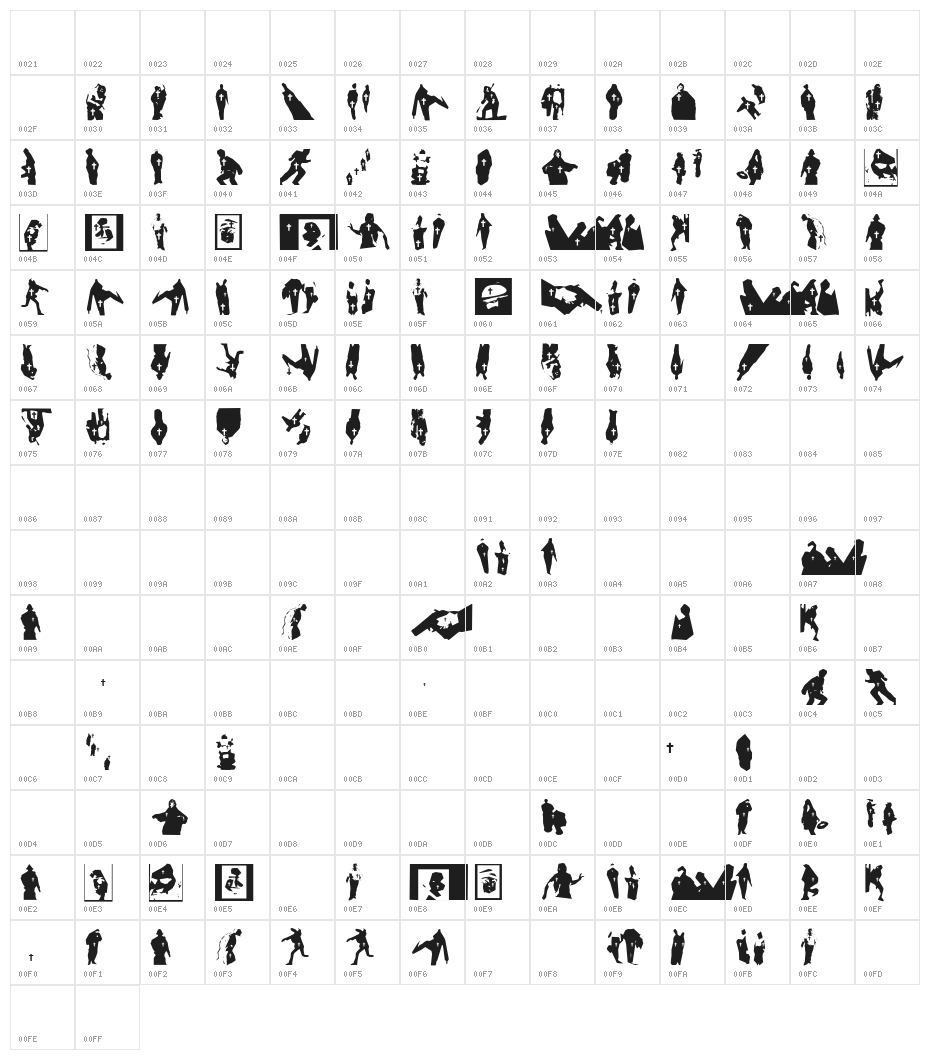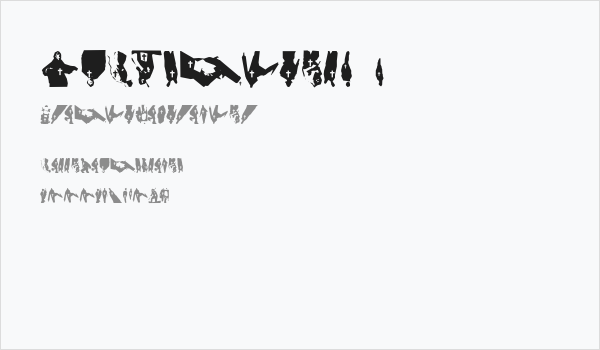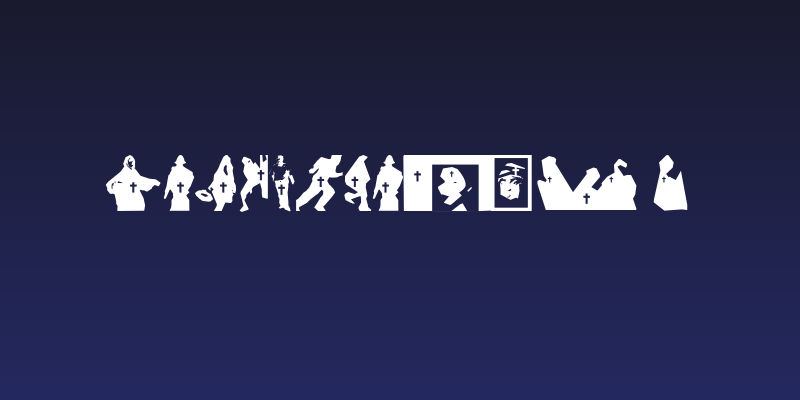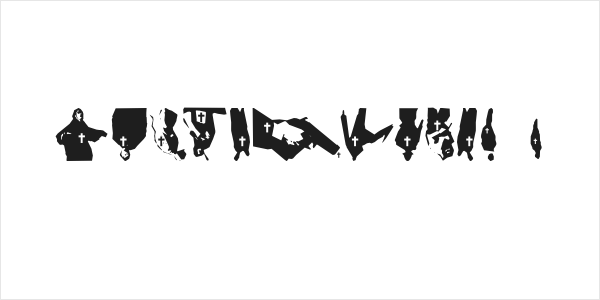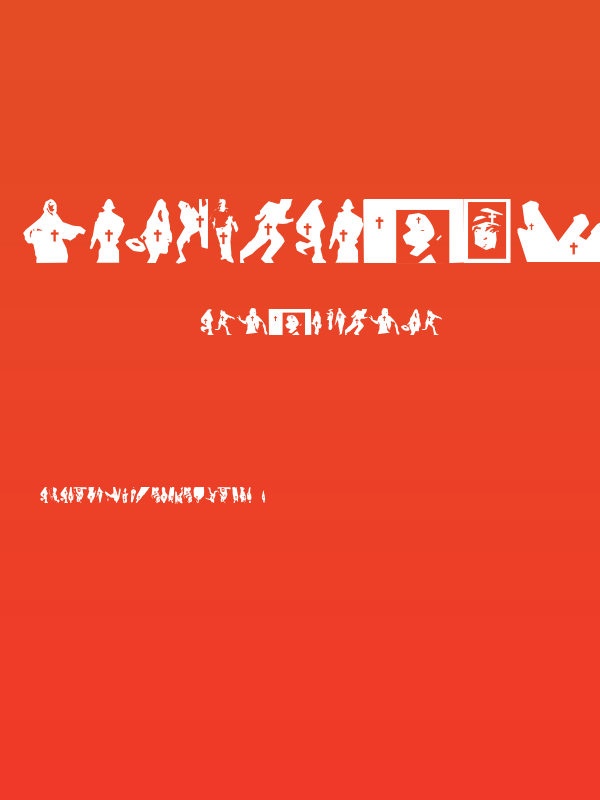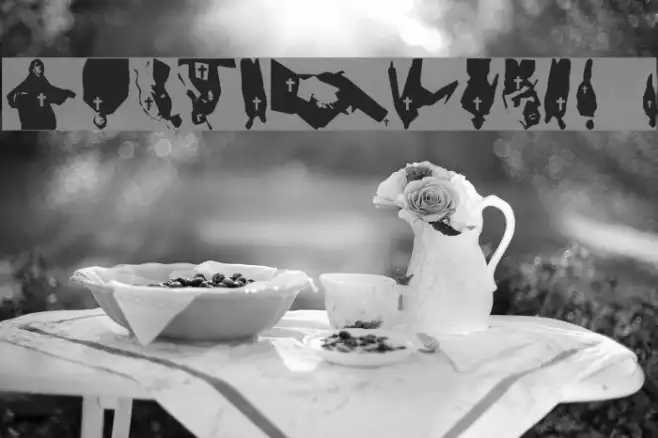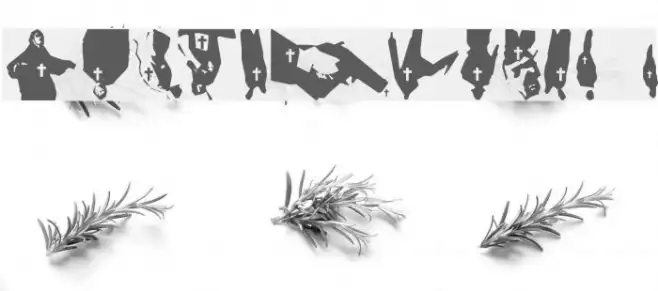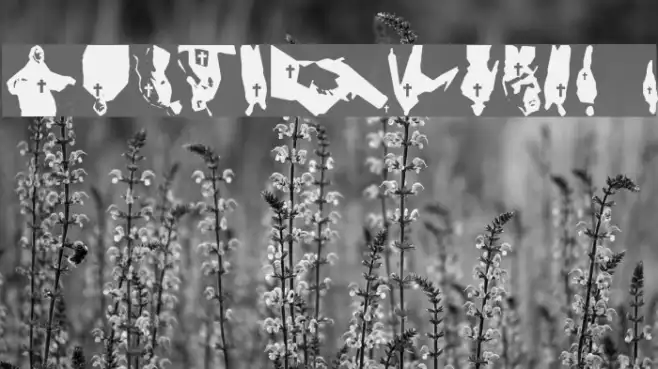
Exhumations Font
Exhumations Description
This is not a traditional font but rather a collection of silhouette-style images that resemble human figures and objects with a gothic or macabre theme. Each character is represented by a unique silhouette, often featuring crosses or religious motifs, creating a dark and eerie aesthetic. The figures are bold and striking, with high contrast between the black silhouettes and the white background. This set is more decorative and thematic, focusing on visual storytelling rather than legibility or typographic function.
| Overall Style | Gothic, Decorative |
| Use Case | Decorative elements, Thematic designs |
| Proposed Projects | Ideal for Halloween-themed designs, gothic posters, horror movie titles, or any project requiring a dark, thematic visual element. |